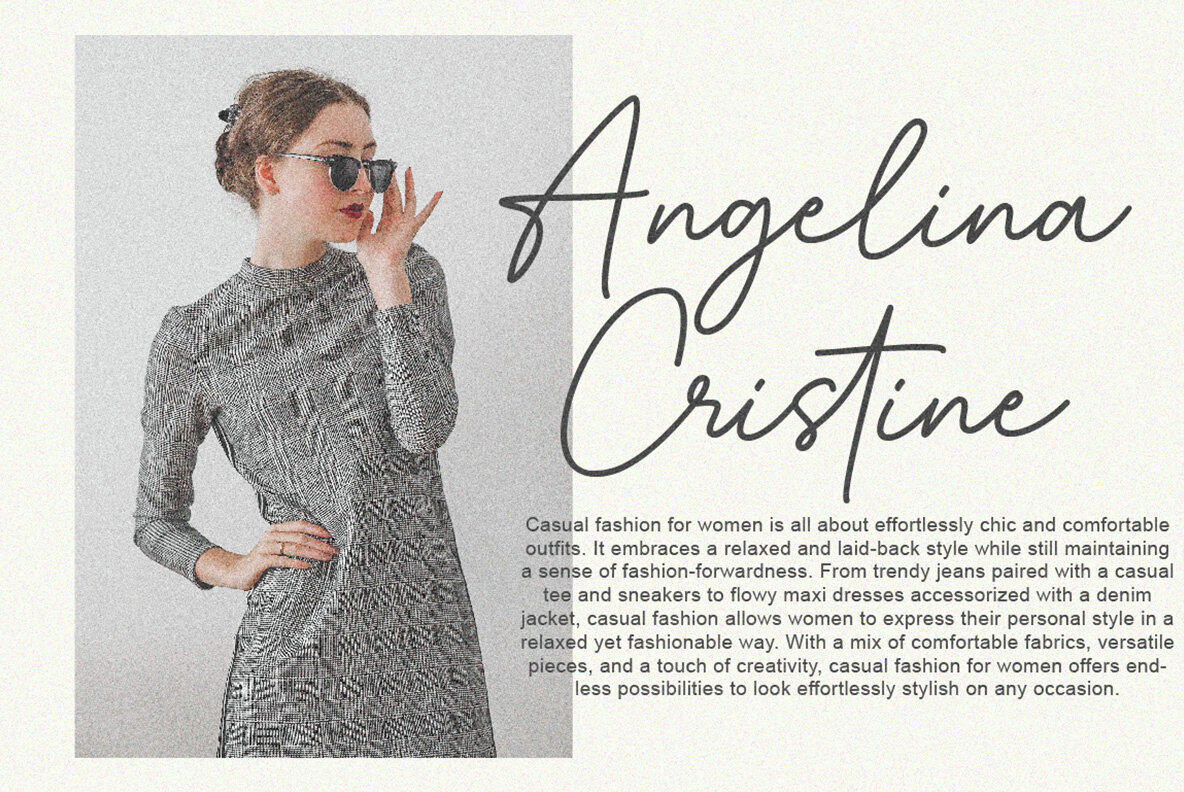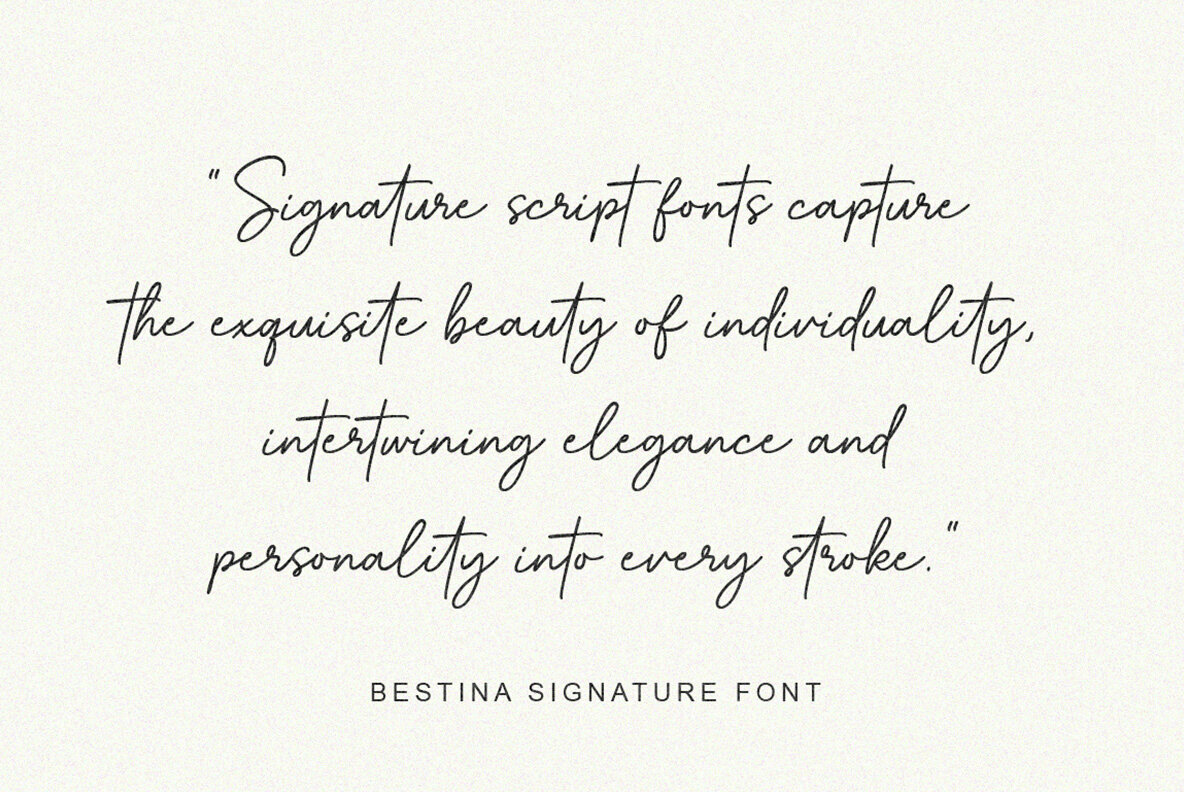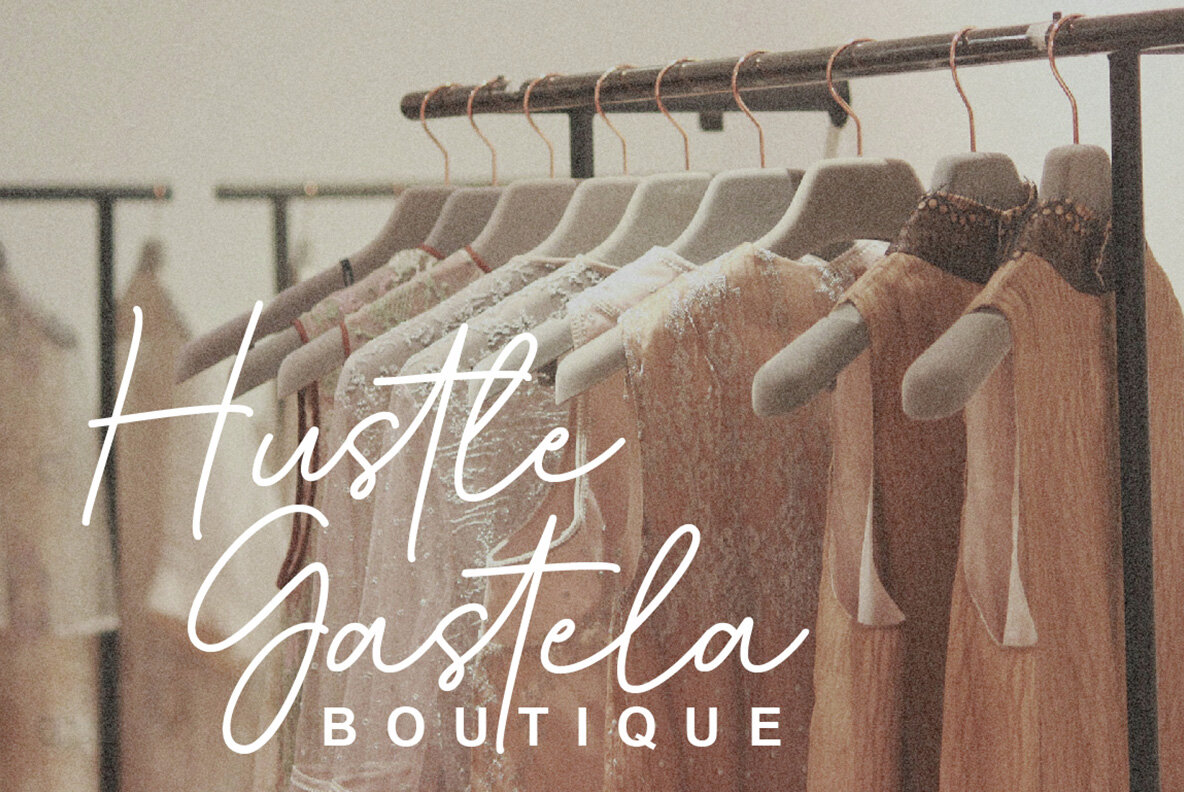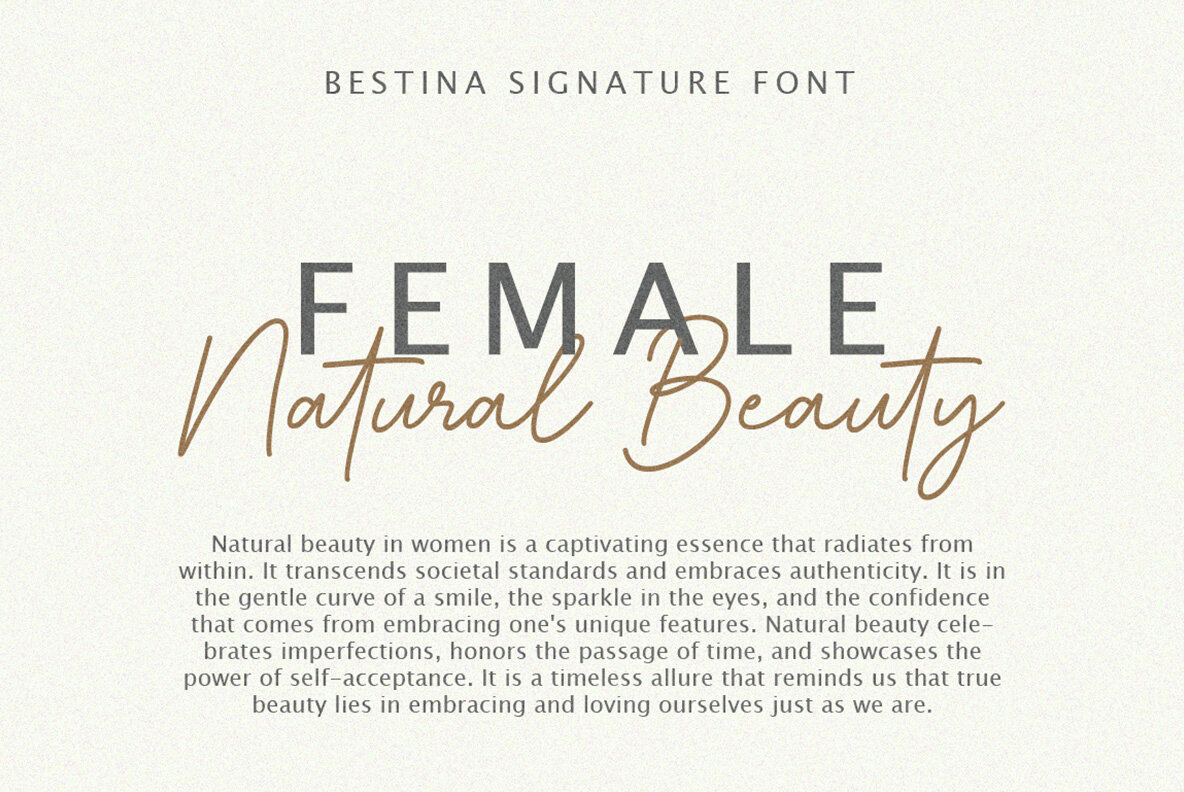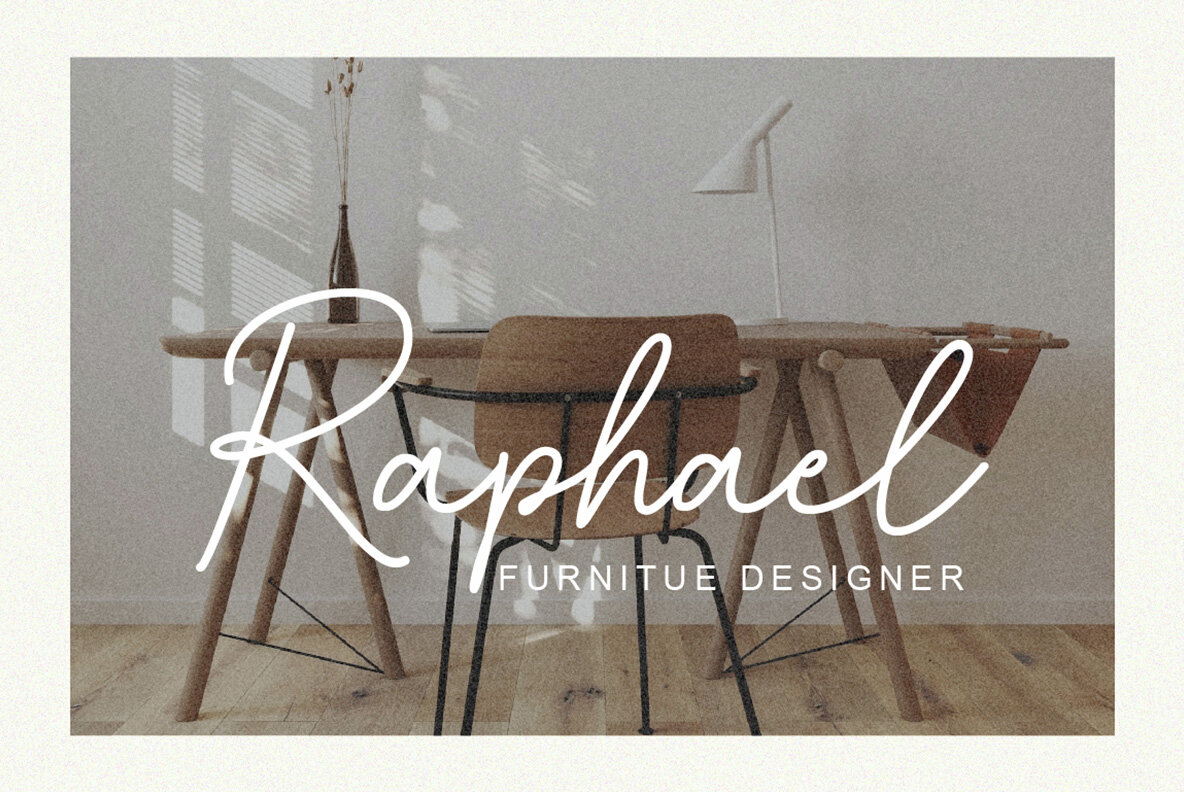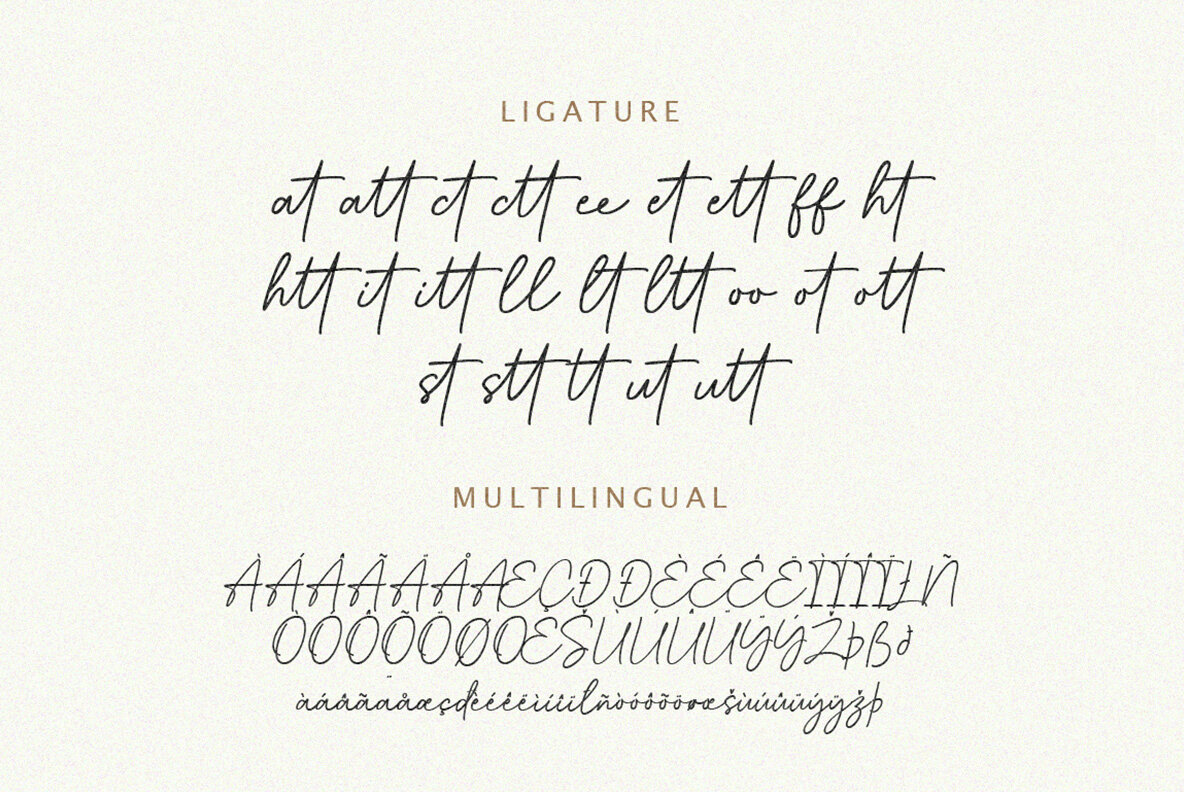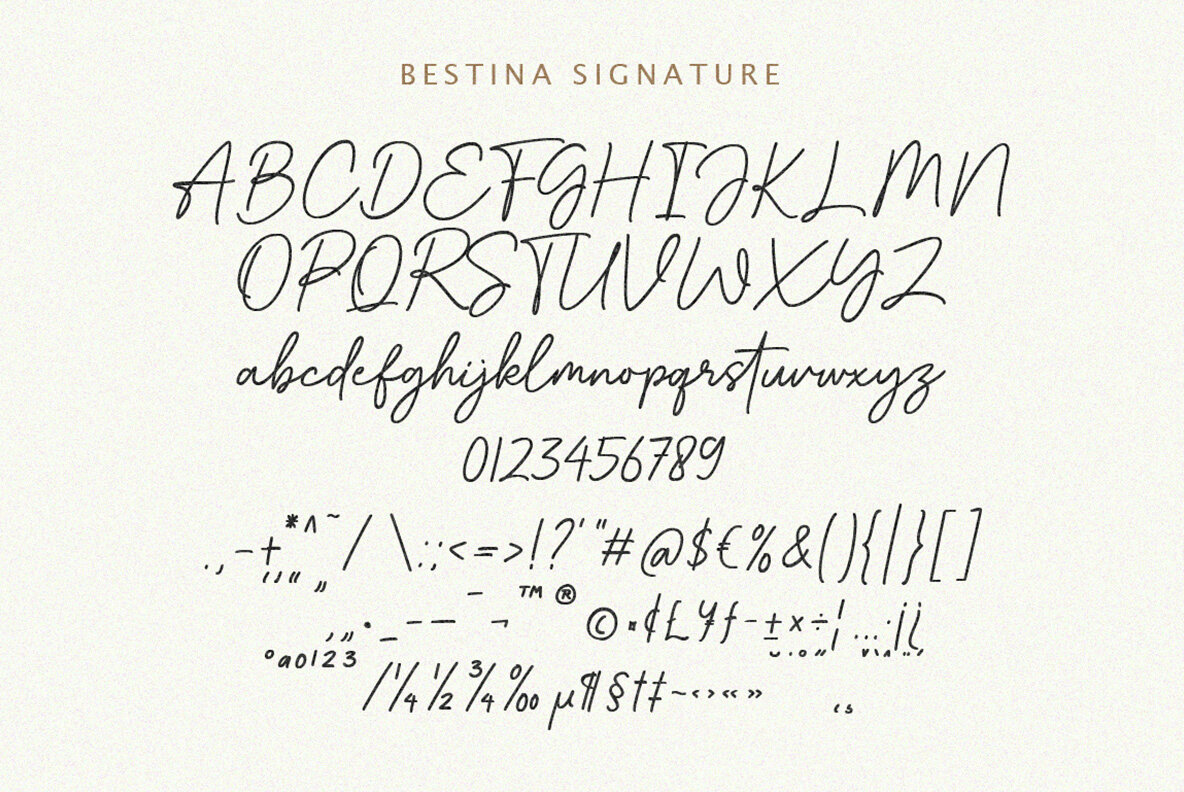
Bestina Signature Font
Bestina Signature
This font is a stylish, contemporary script typeface that simulates fluid, natural handwriting. It is highly expressive and uniquely suited for creating dynamic, personal communication in design work. Each character displays a distinctively organic stroke, lending the typeface an elegant and artistic touch that is ideal for invitations, branding, and creative advertising.